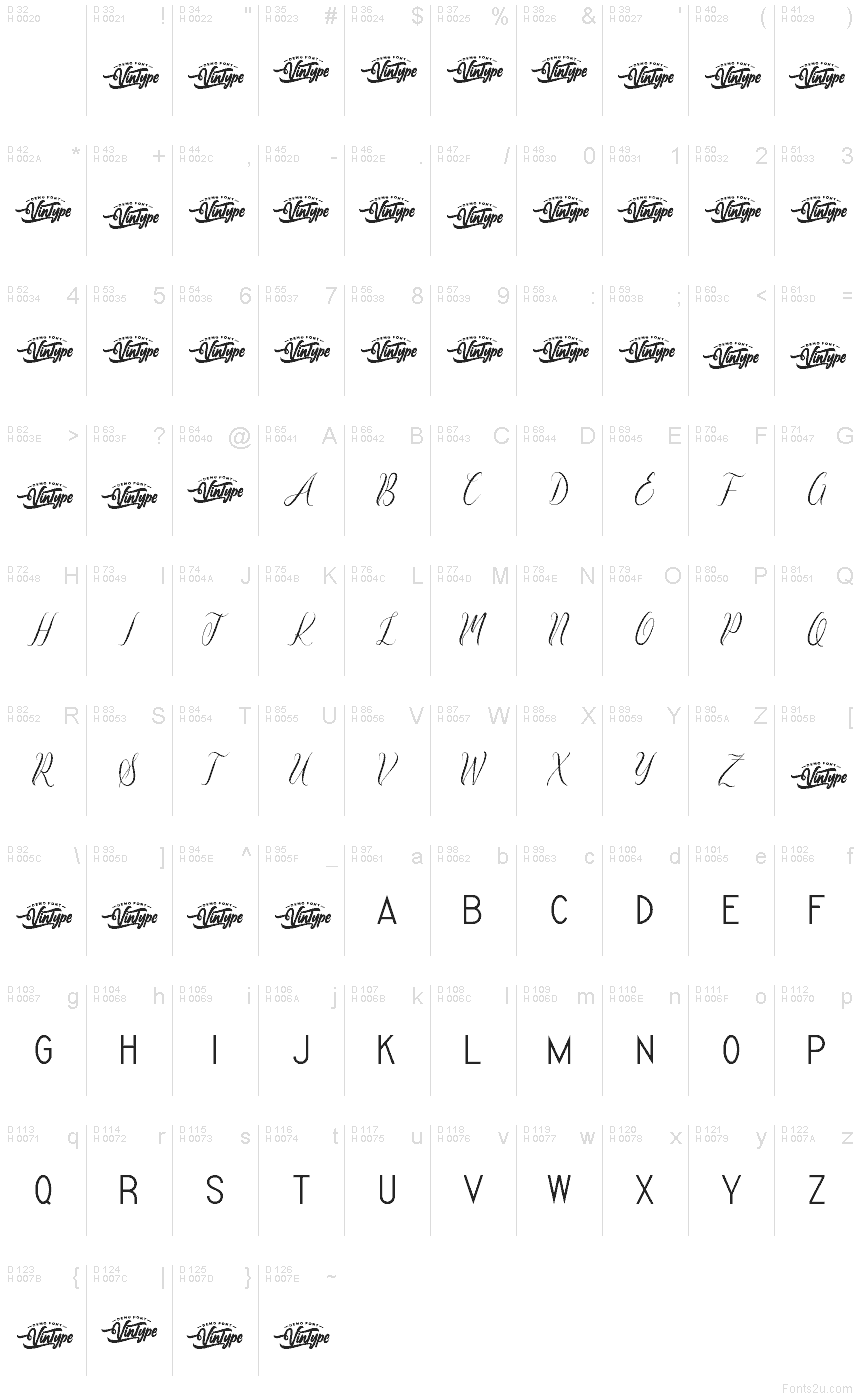
Flower Snow Demo
Flower Snow font by VinType is a free decorative display font. Built around the rare blend of crisp, ultra-thin verticals and botanical, frost‑like flourishes, it feels both airy and couture. The letters stand tall and refined, with delicate loops that read like vines etched in ice—elegant without getting fussy, striking without shouting.
Using Flower Snow, headlines gain a whispery presence that still commands attention—great for wedding suites, boutique logos, perfume packaging, seasonal posters, editorial titles, and social graphics. The rhythm stays clean, so your message doesn’t drown in ornament. Pair this free font with a plain geometric sans for body copy, and give it room to breathe: larger sizes with a touch of extra tracking make the filigree shine.